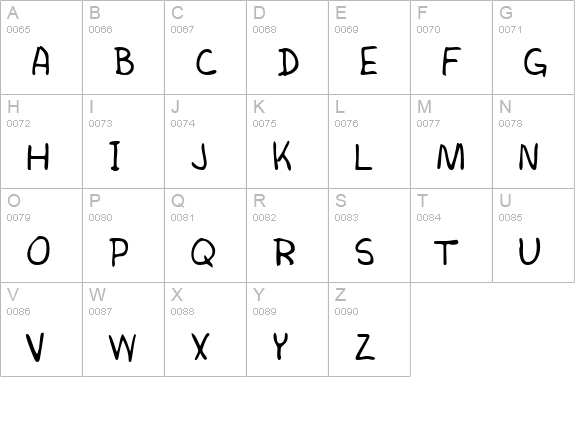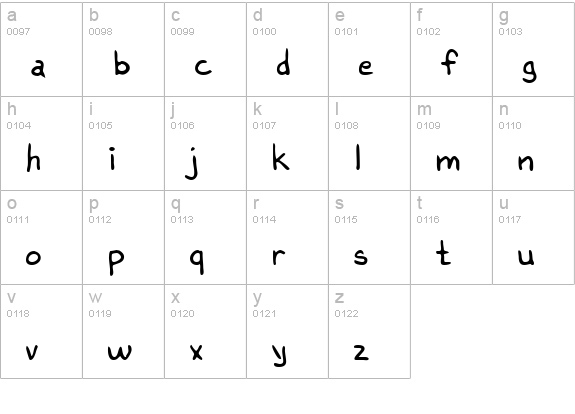
BerniesHand Regular Font Details
BerniesHand Regular is the standard, neutral variant in the BerniesHand typeface family \xE2\x80\x94 well suited to general body text, paragraphs, and standard typographic work.